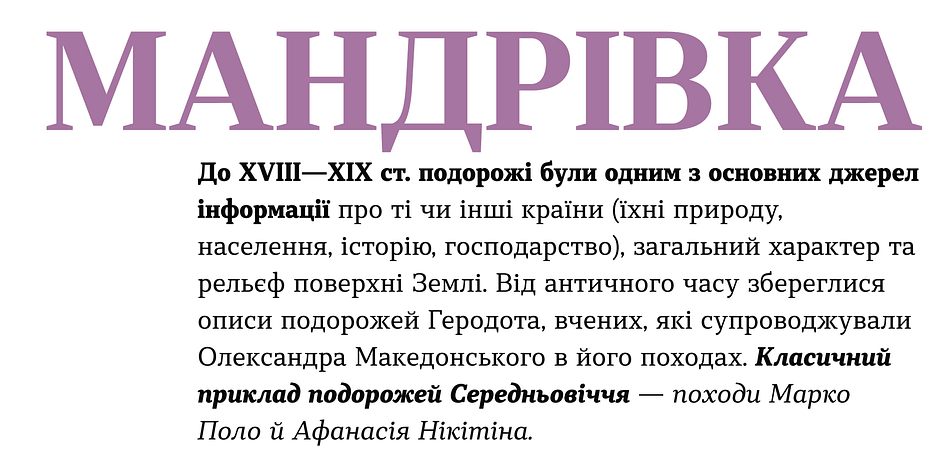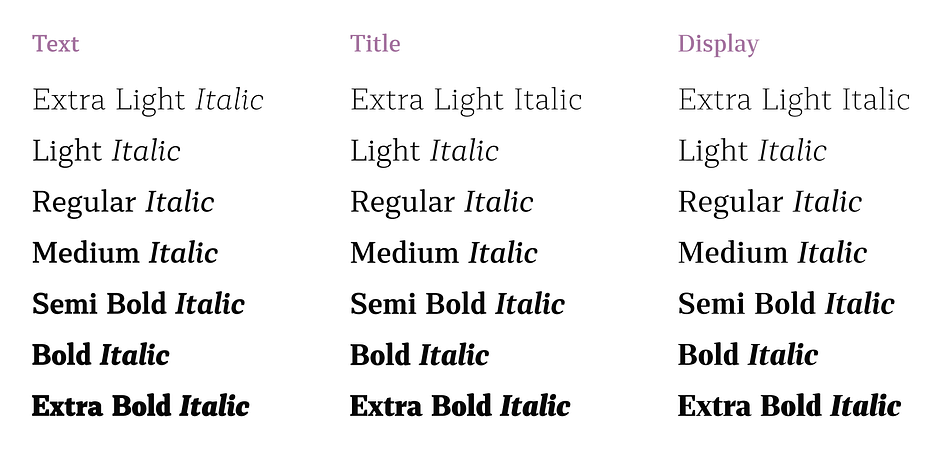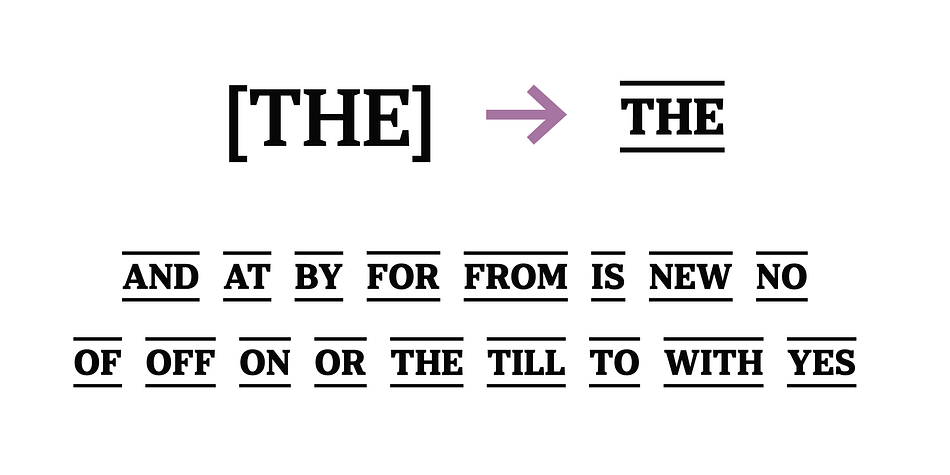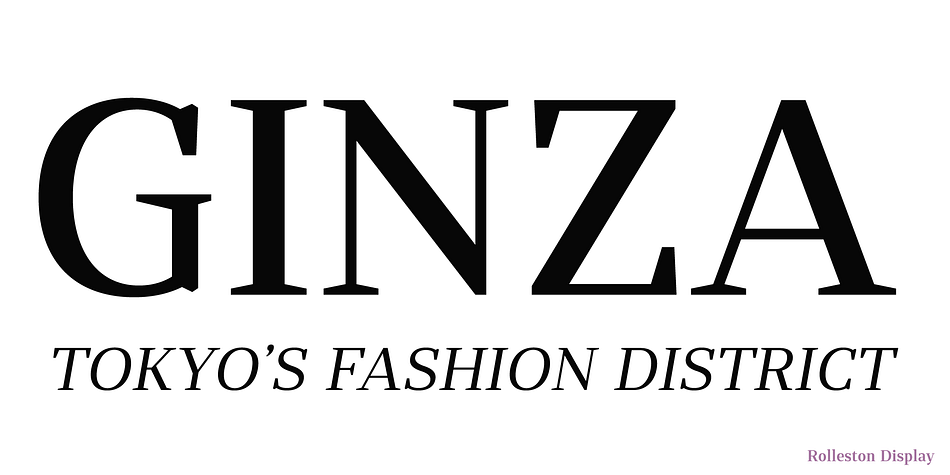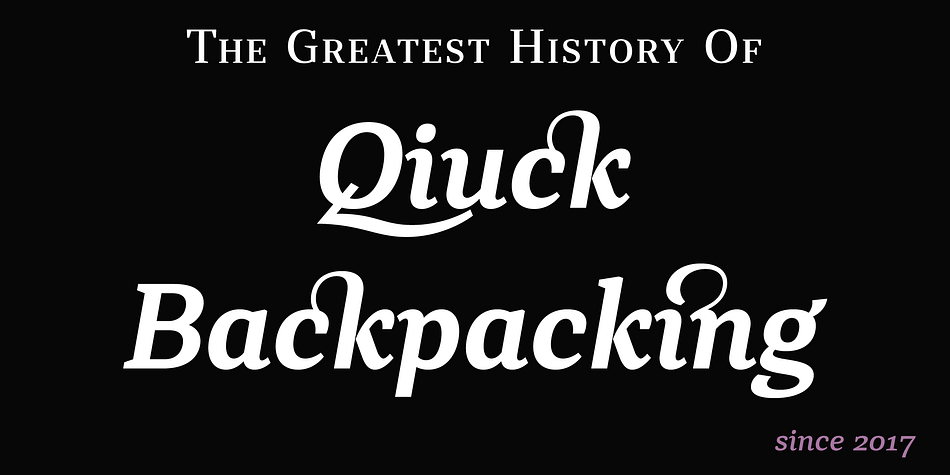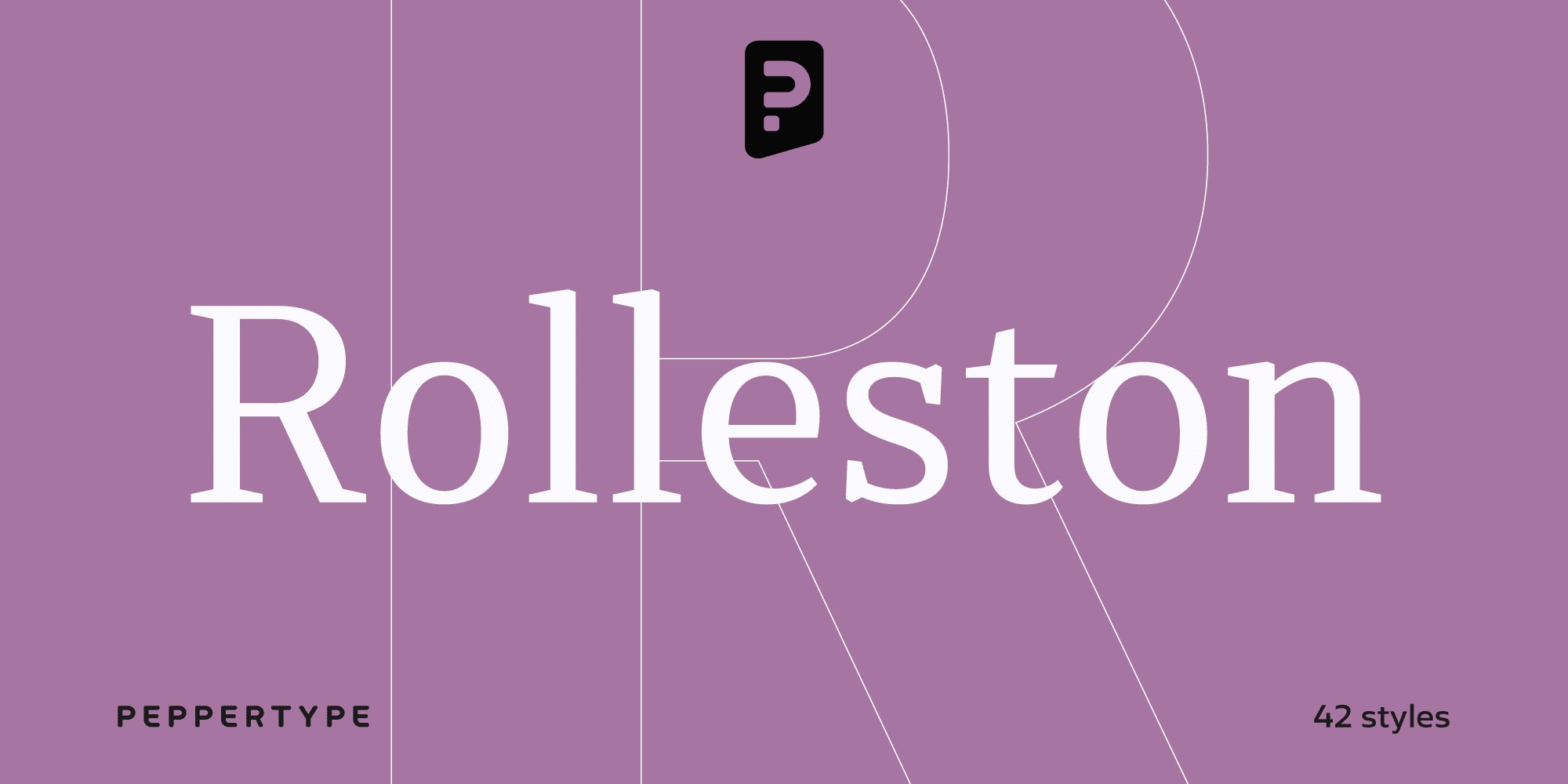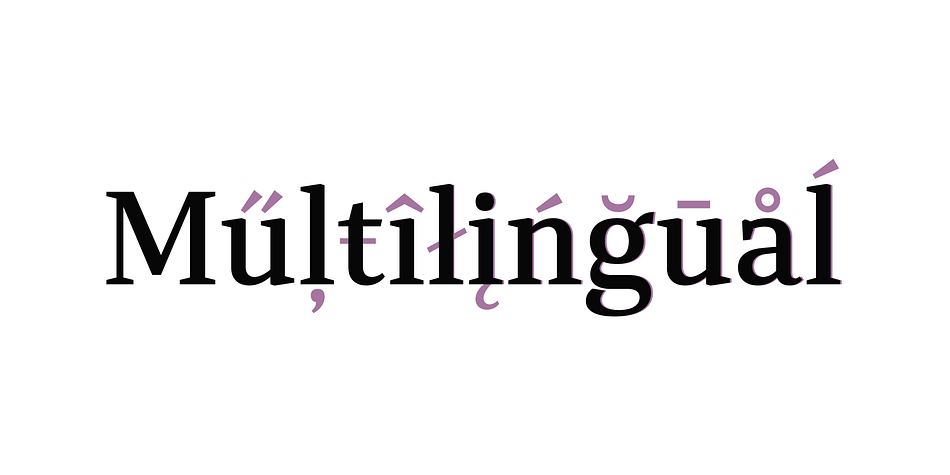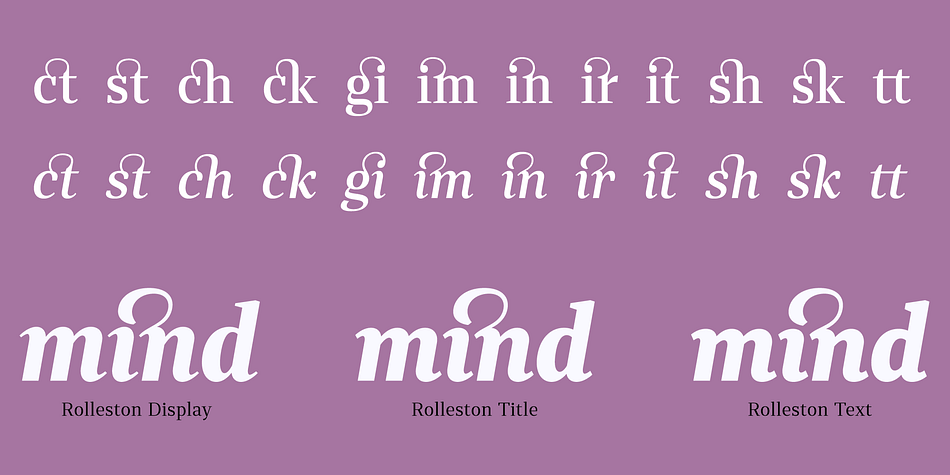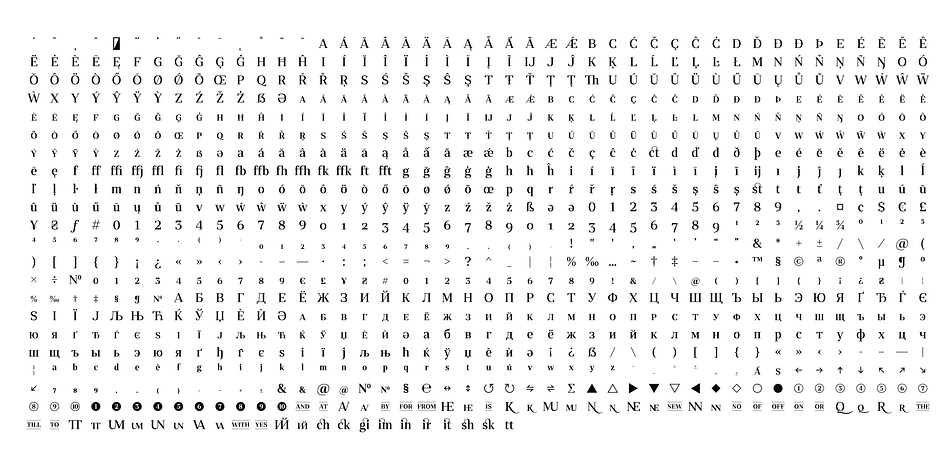
Rolleston is a serif font family. This typeface has forty-two styles and was published by Pepper Type.
Rolleston is a rigid 42-style serif font family with peculiar spiky serifs. It goes in three optical sizes, Text, Title, and Display.
Rolleston features extensive language support including Cyrillic, contains a variety of Opentype features, and an abundance of ligatures and alternative to choose from – for fancy headlines and elegant body copy.